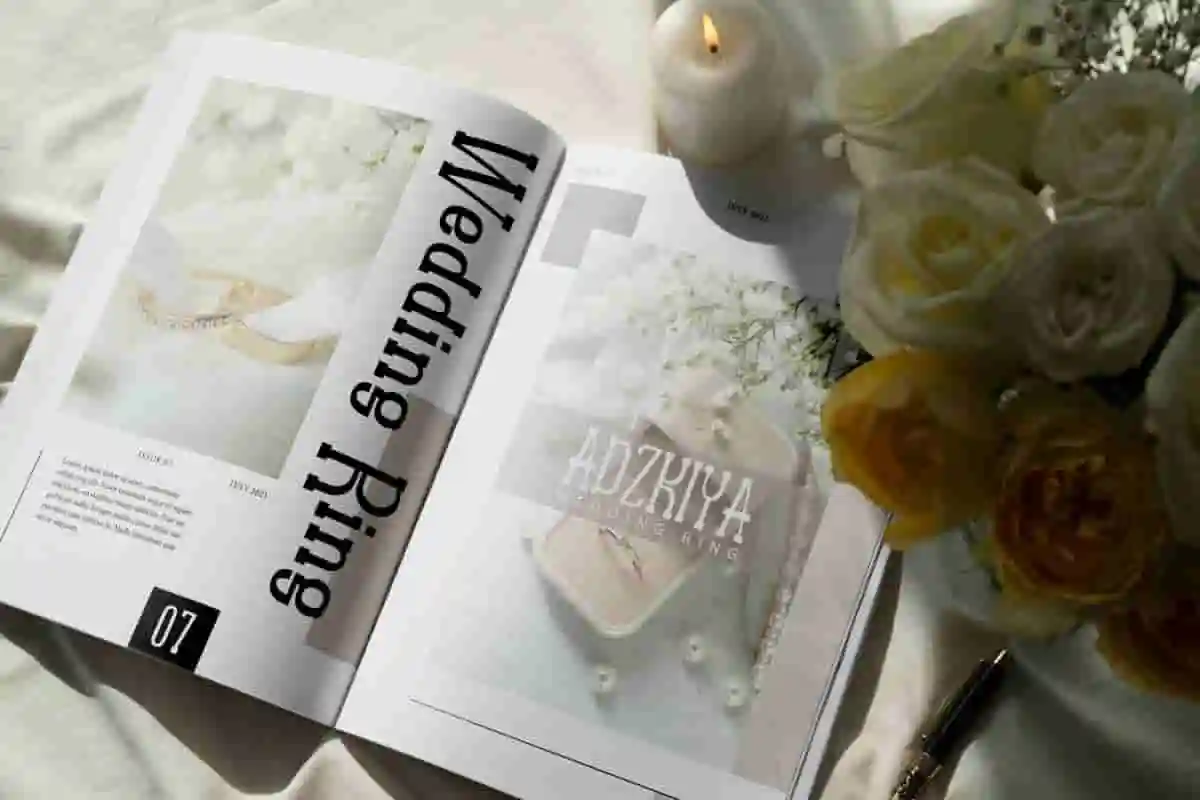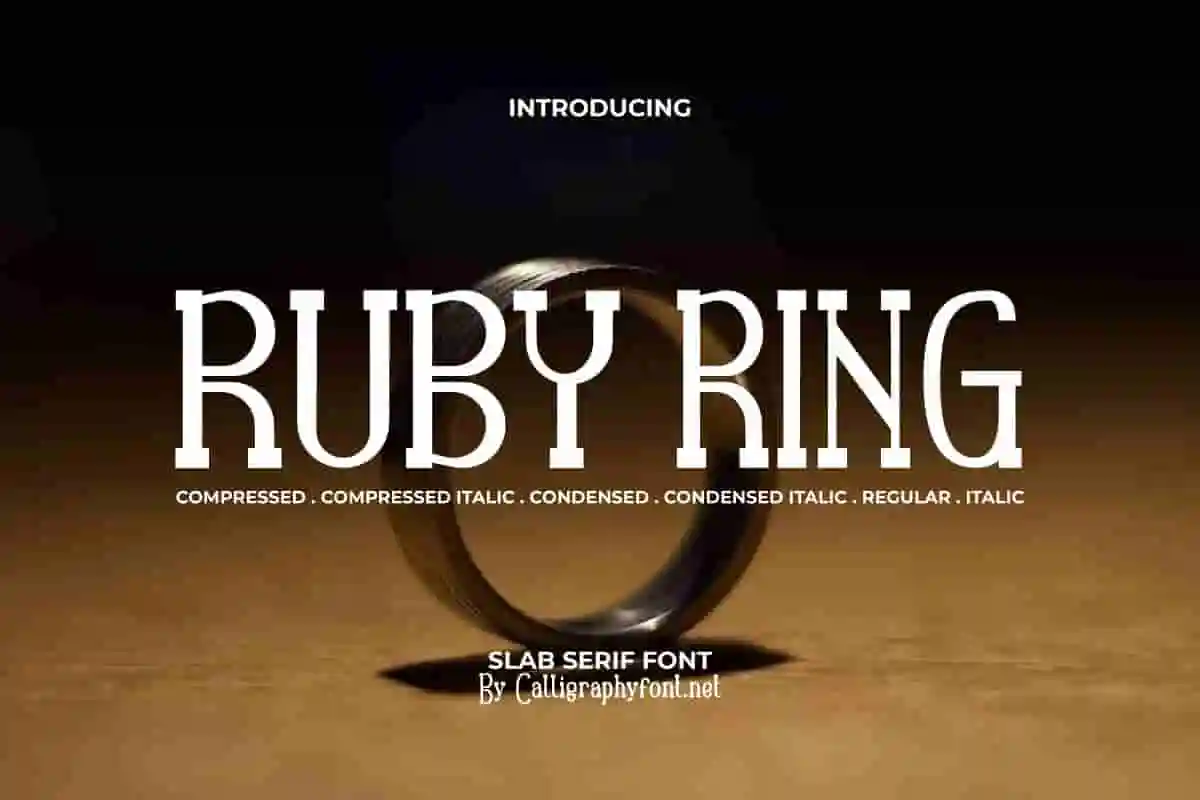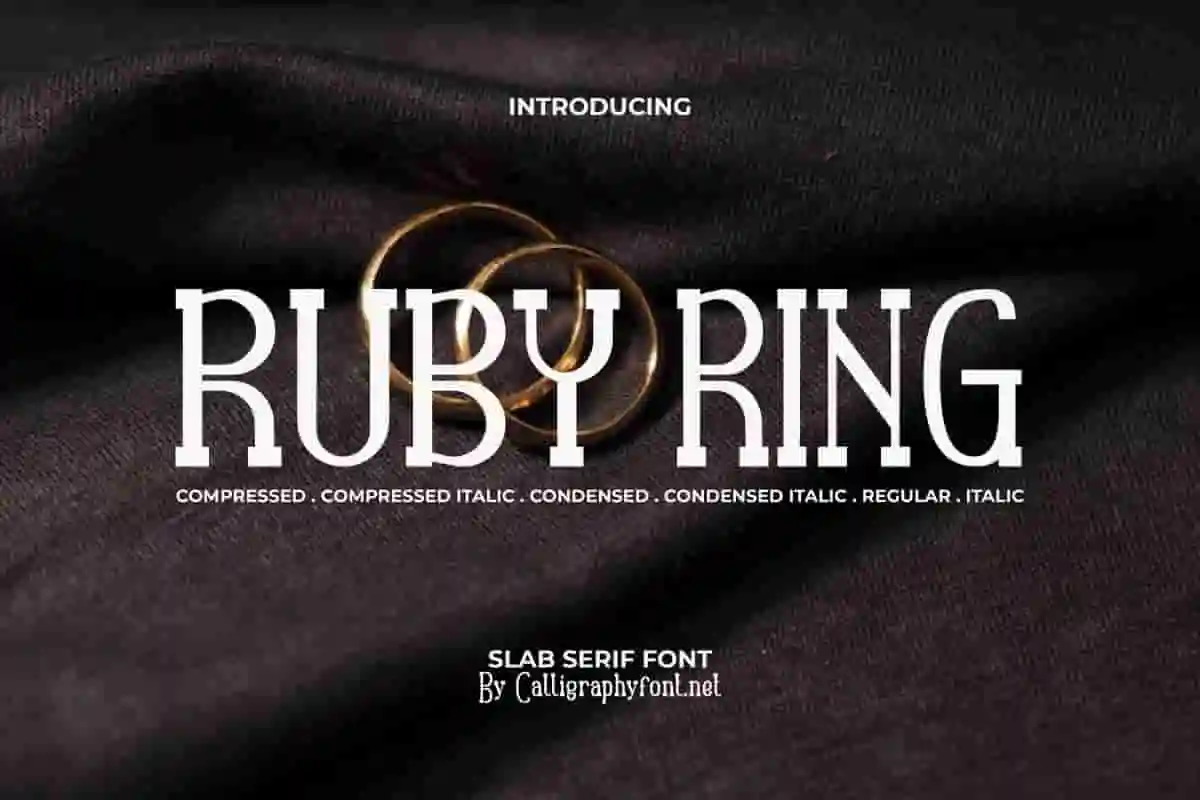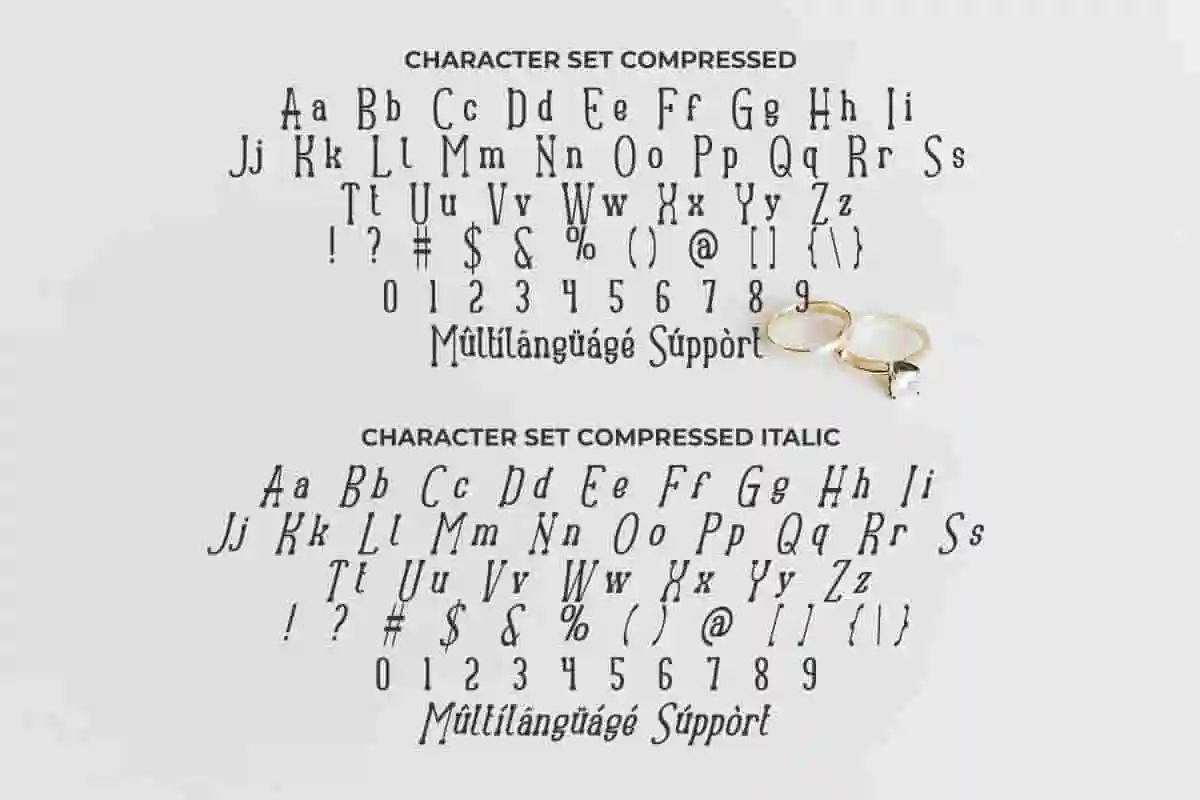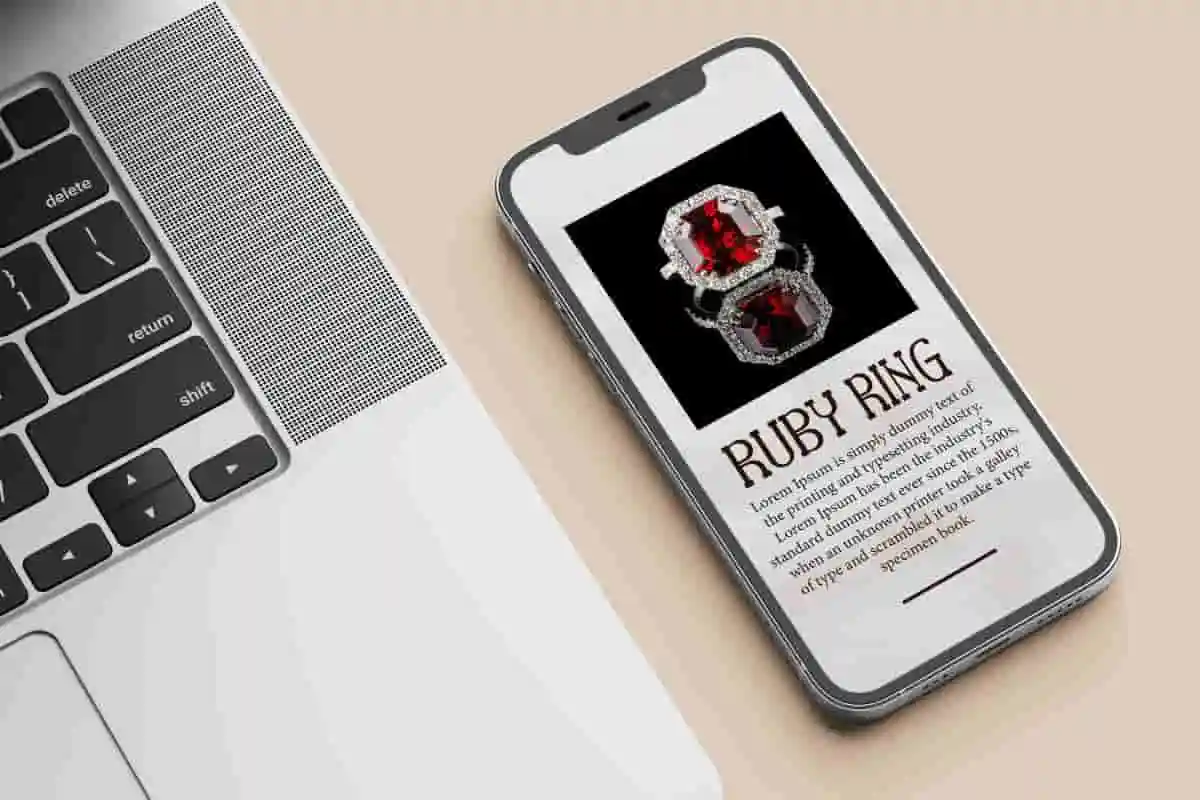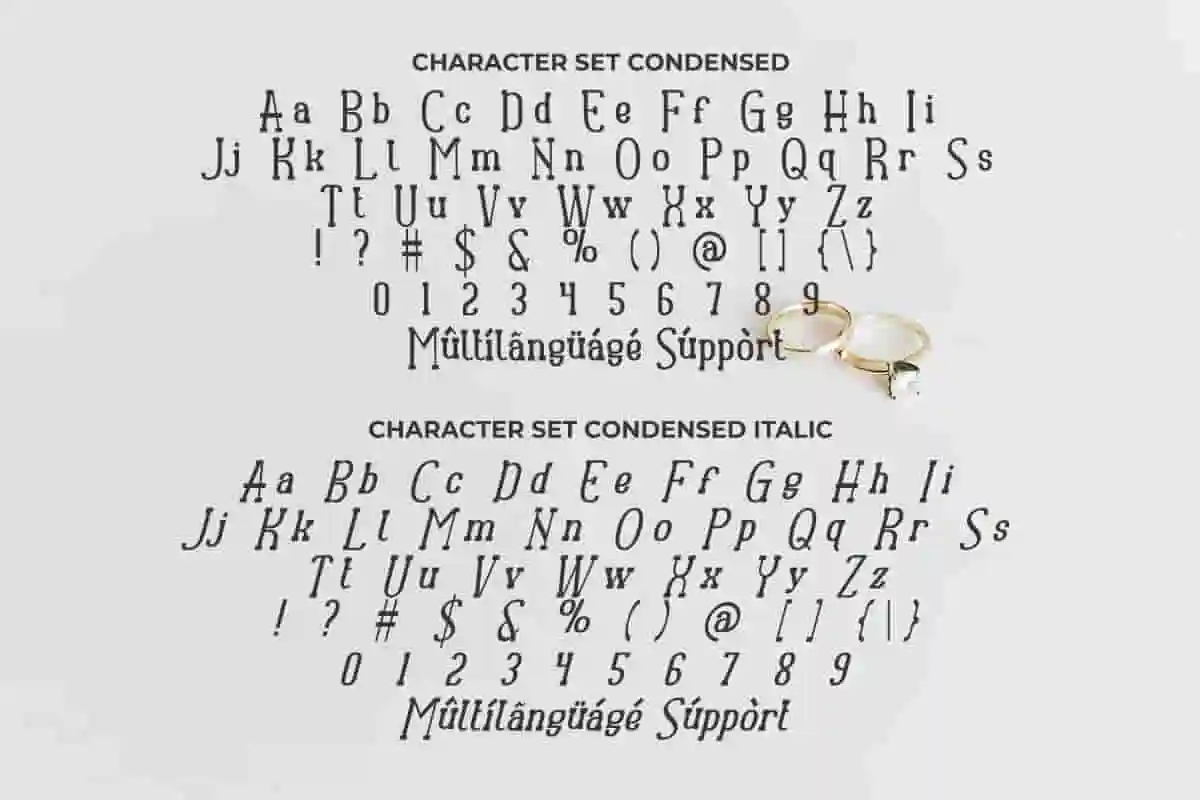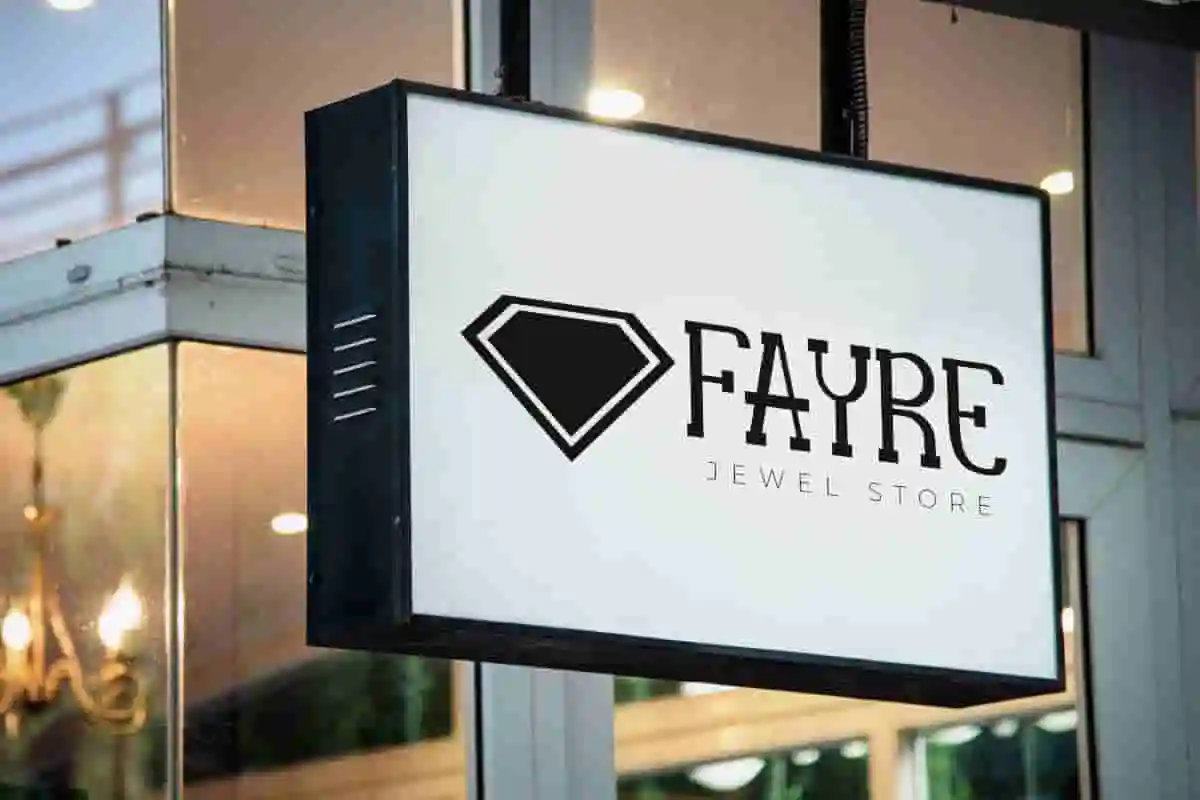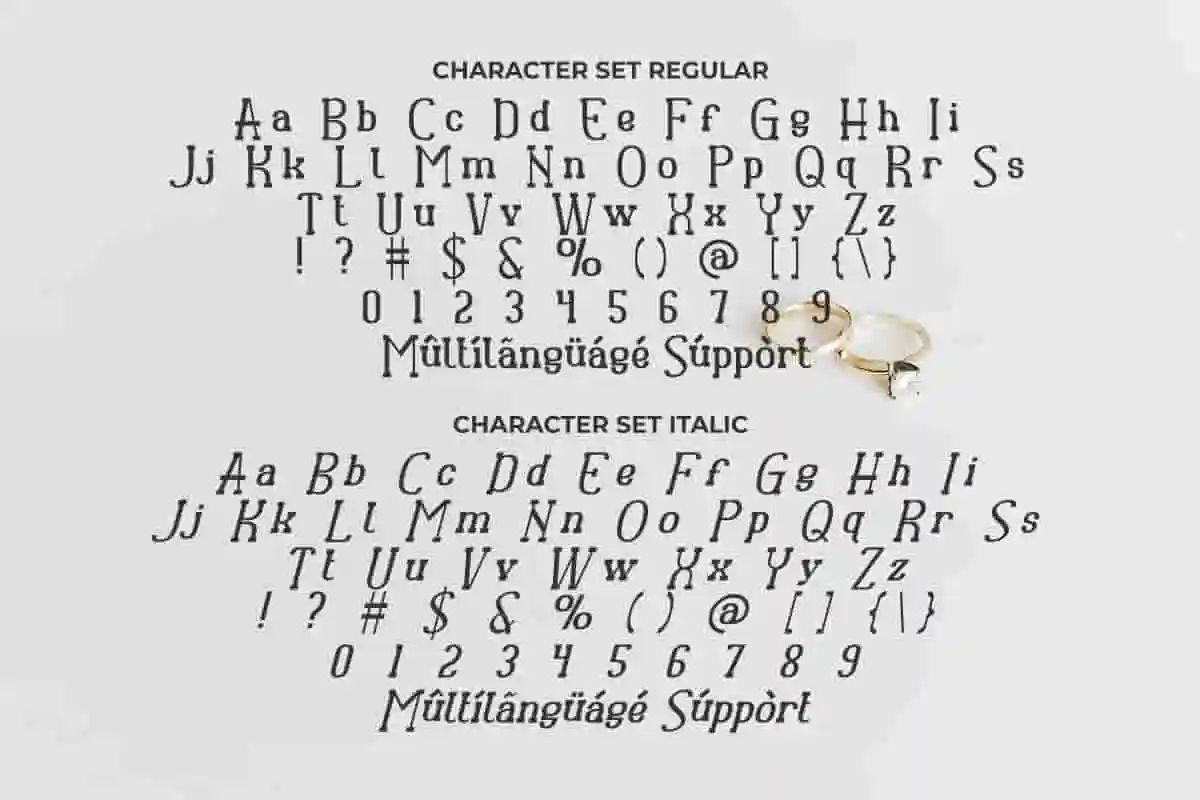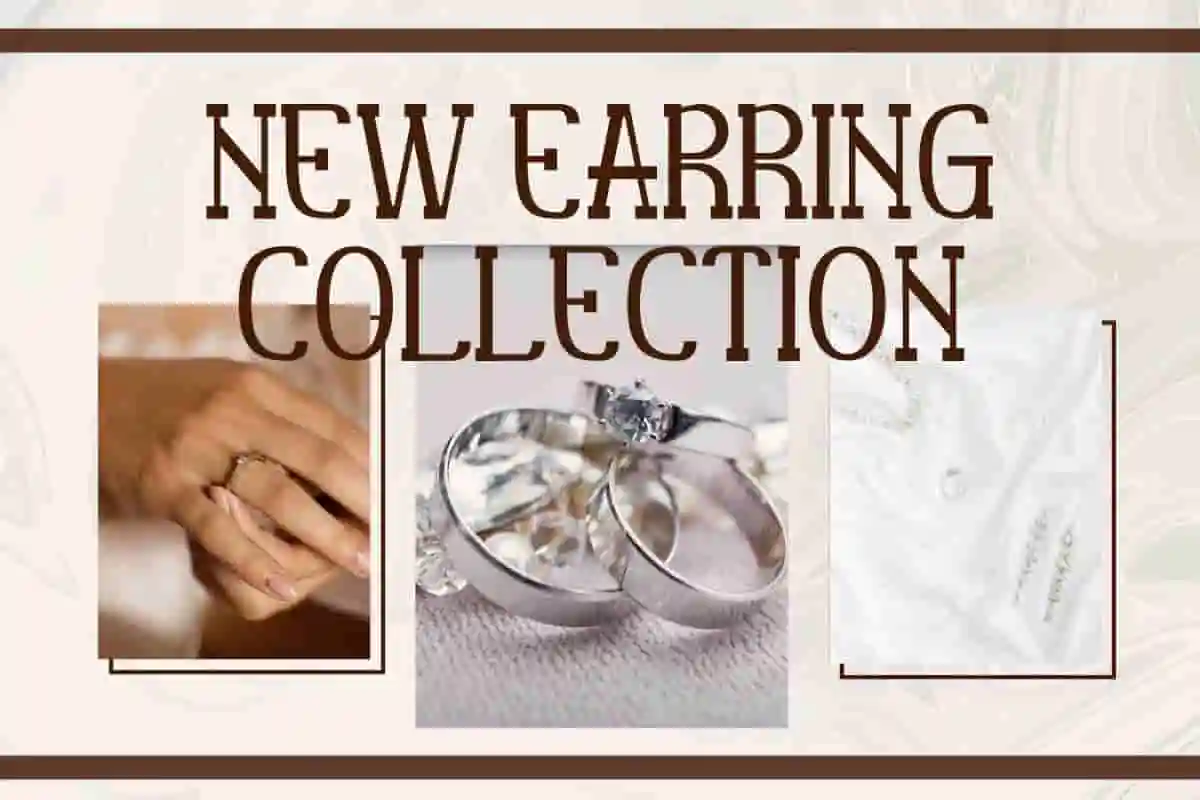
Ruby Ring Font
Ruby Ring Font is an attractive contemporary slab serif font, inspired by magazine catalogs. It also makes things effective for accessories, diamond store sign, header, label, sticker, watermark, wedding project, etc.
Ruby Ring Font is a precious luxury slab serif display font that packs in six styles: Regular, Italic, Compressed, Compressed Italic, Condensed, and Condensed Italic. This type of font gives a modern impression and feels expensive. Its unique, tall shape is adapted from a serif base so it will suit any industry, such as accessories, author, café, event organizer, fashion, furniture, handicraft, honey manufacturers, jewelry, photography, pottery, printing, publishing, restaurant, wedding, and much more.
Ruby Ring Font is a great choice to make it the main text (primary text) or paired with another type of font (secondary text). It will be ready to accompany you in any project, such as apps, billboard, body text, brand logo, brochure, catalog, cover, header, mockup, menu, packaging design, poster, product label, screen print, signage, stationery, sticker, watermark, website, etc.